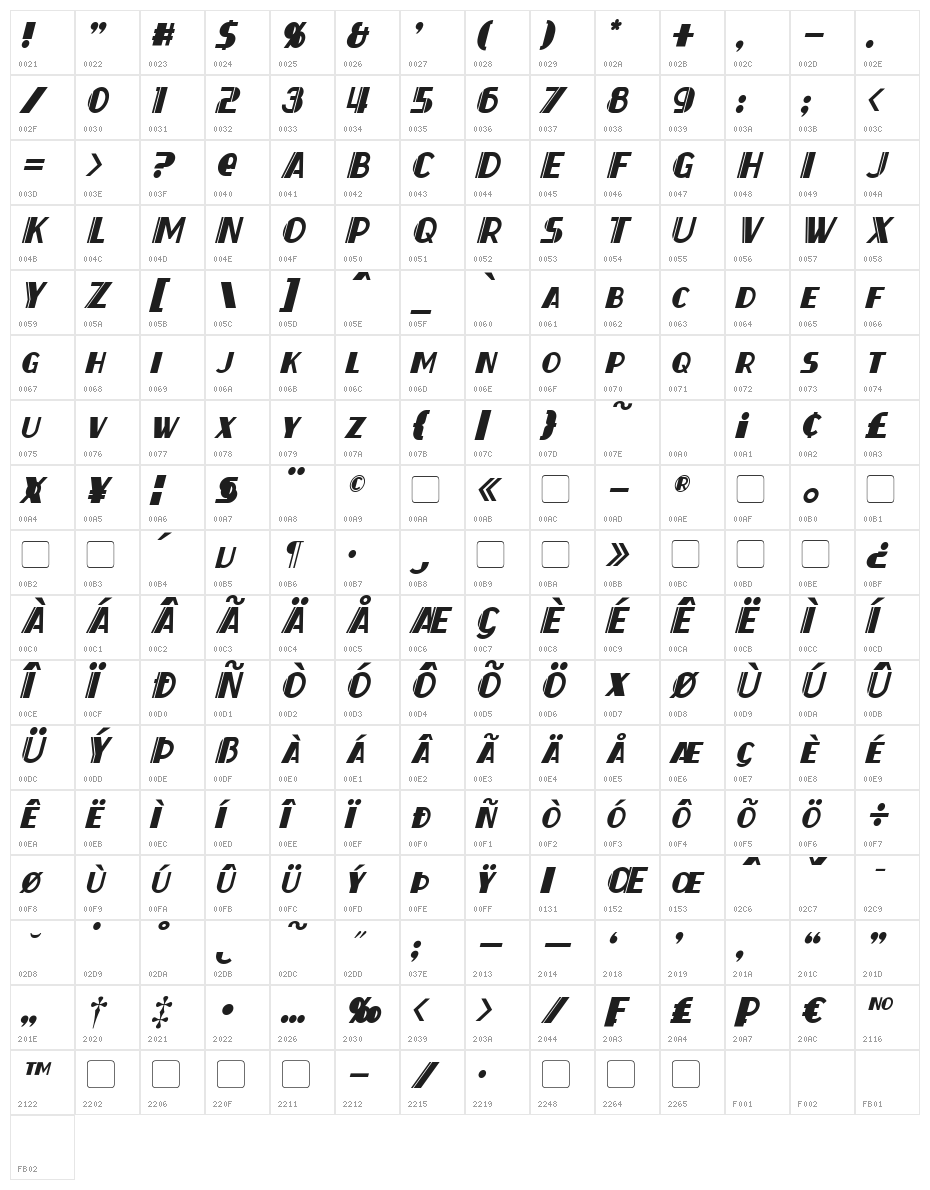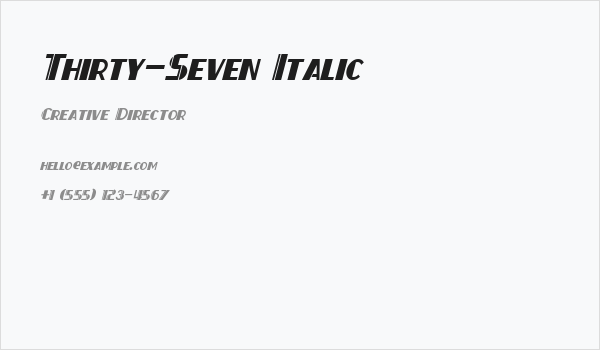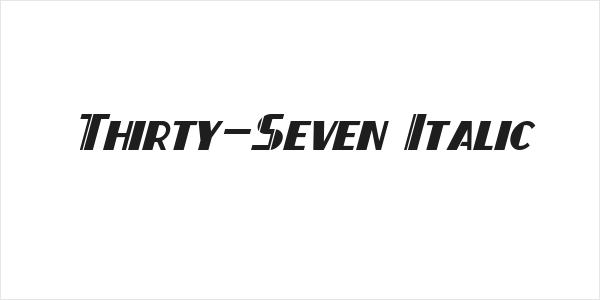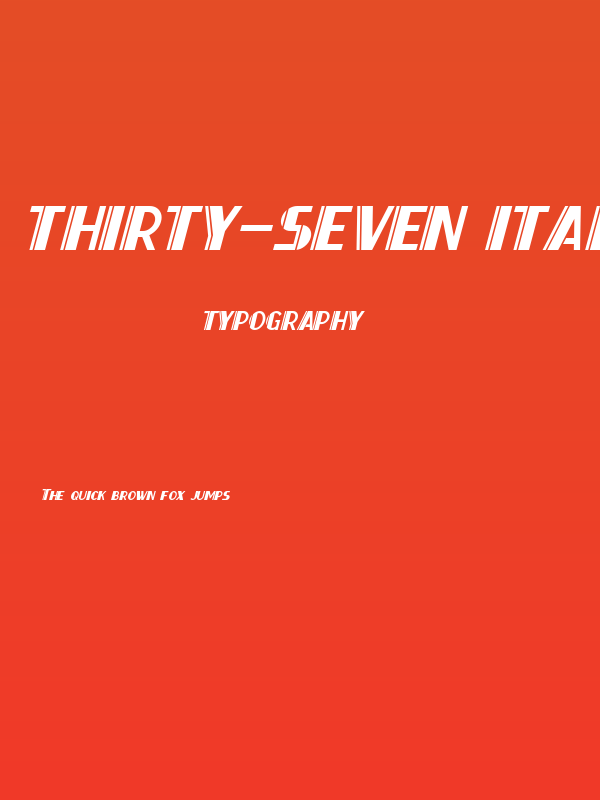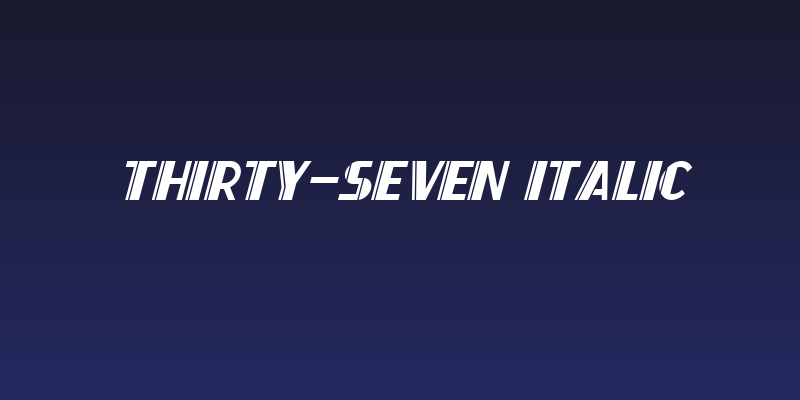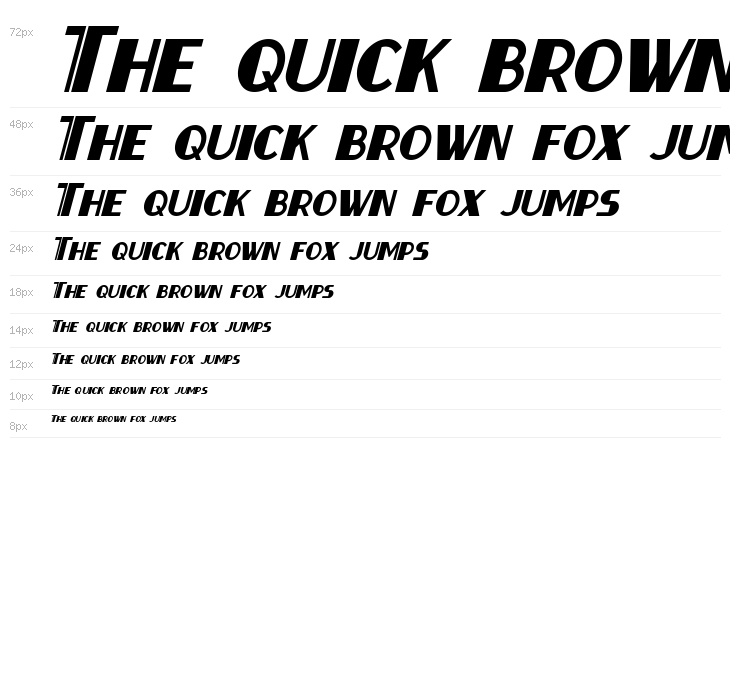
Thirty-Seven Italic Font
Thirty-Seven Italic Description
This font features a bold, italicized style with a distinct slant, giving it a dynamic and energetic appearance. The characters are designed with a strong geometric influence, evident in the sharp angles and clean lines. The uppercase and lowercase letters maintain a consistent style, with a noticeable emphasis on diagonal strokes. The numbers and special characters follow the same design principles, ensuring uniformity across all glyphs. The font's boldness and italic nature make it stand out, suitable for attention-grabbing headlines or logos. Its modern aesthetic is complemented by a medium contrast in stroke thickness, adding to its visual appeal.
| Proposed Projects | Ideal for branding, advertising, sports team logos, and dynamic headlines. |